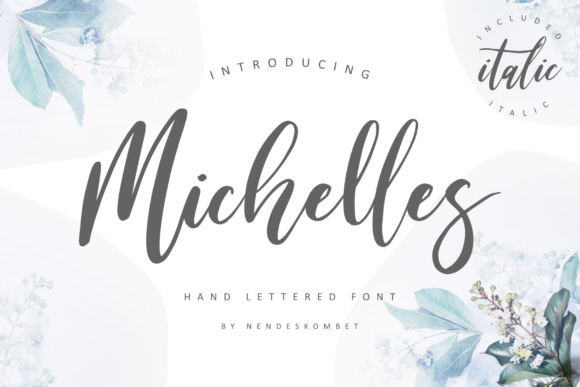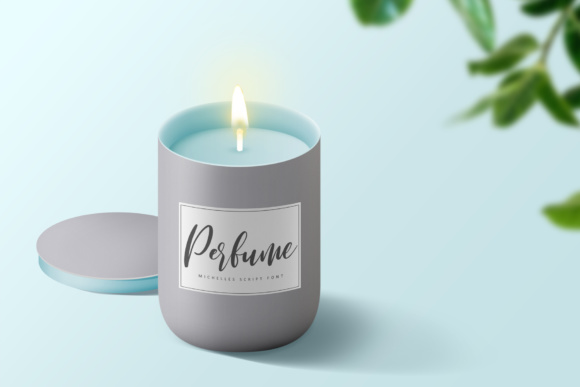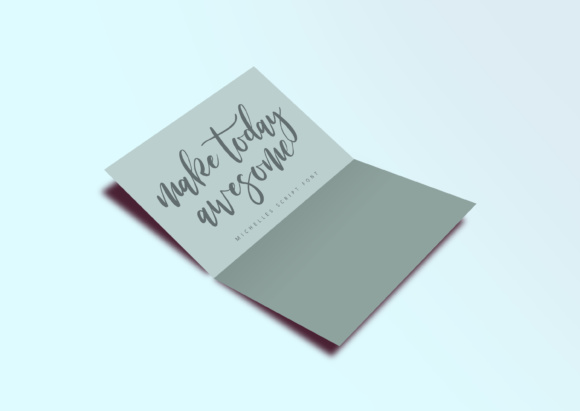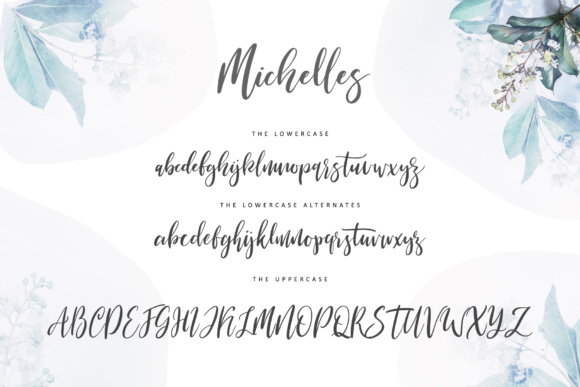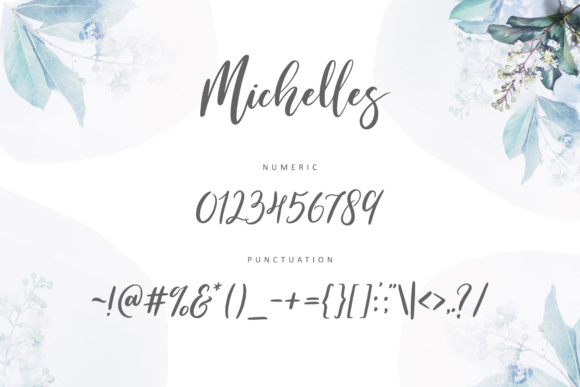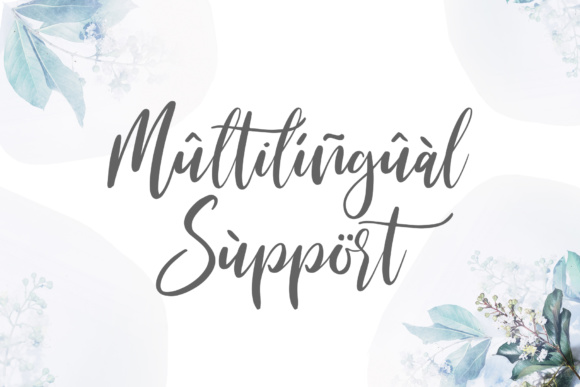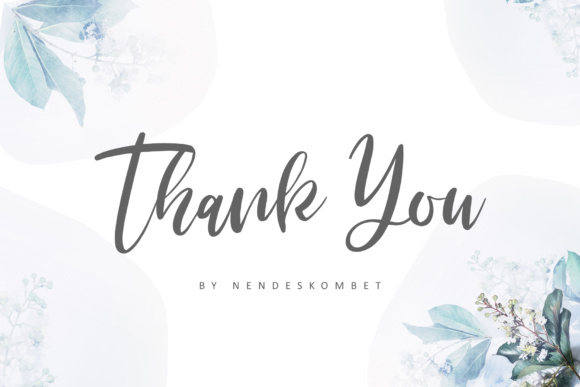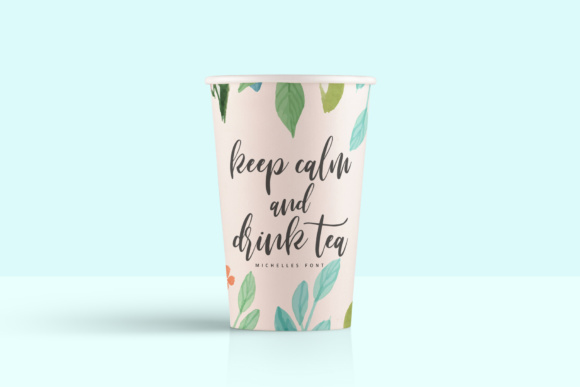
Michelles Script Font
About Michelles Script Font
The Michelles is a fabulously fun, yet elegant script font with tons of energy, allowing you to create beautiful hand-made typography in an instant.  The Michelles is guaranteed to make your text stand out – perfect for logos, printed quotes, invitations, cards, product packaging, headers and whatever your imagination holds.